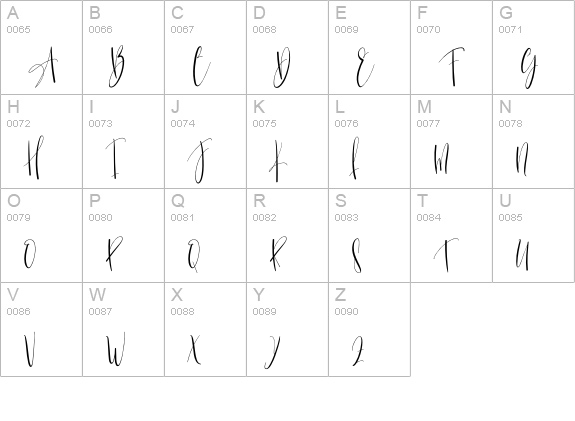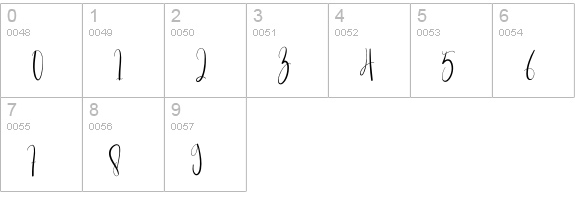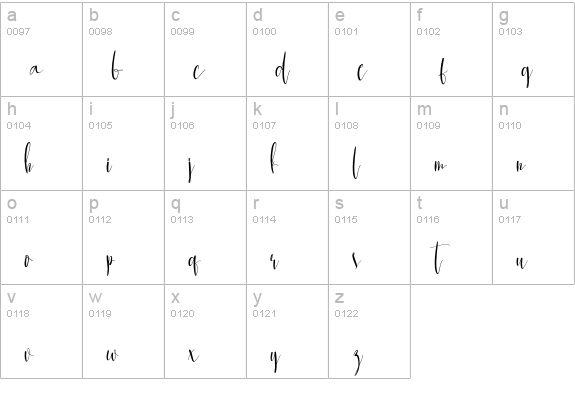
Emolka Font Details
Emolka is a free for personal use font in the Script > Handwritten category, designed by scratchones. It has been downloaded 4 times and is available for Windows, Mac and Linux.
Emolka font is a modern and stylish typeface that exudes elegance and sophistication. Its sleek lines and subtle curves make it perfect for a wide range of design projects, from branding to editorial layouts. The versatility of Emolka font allows it to be used in both headlines and body text, ensuring a cohesive and professional look throughout your work.
With its clean and modern aesthetic, Emolka font is sure to become a staple in your font library. Its timeless design and easy readability make it a great choice for any project, big or small. Download Emolka font today and add a touch of sophistication to your next design endeavor.